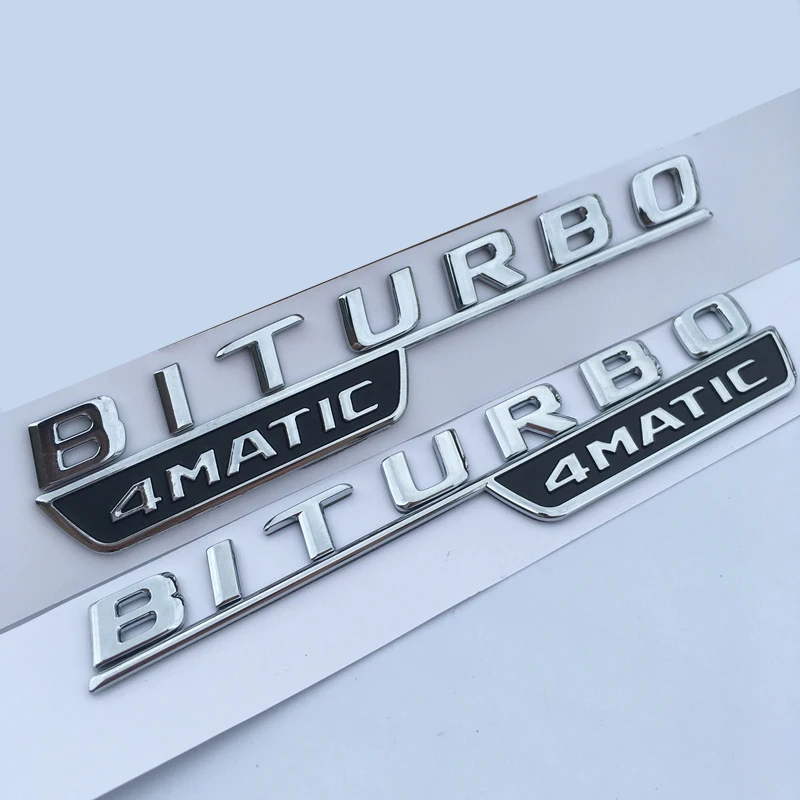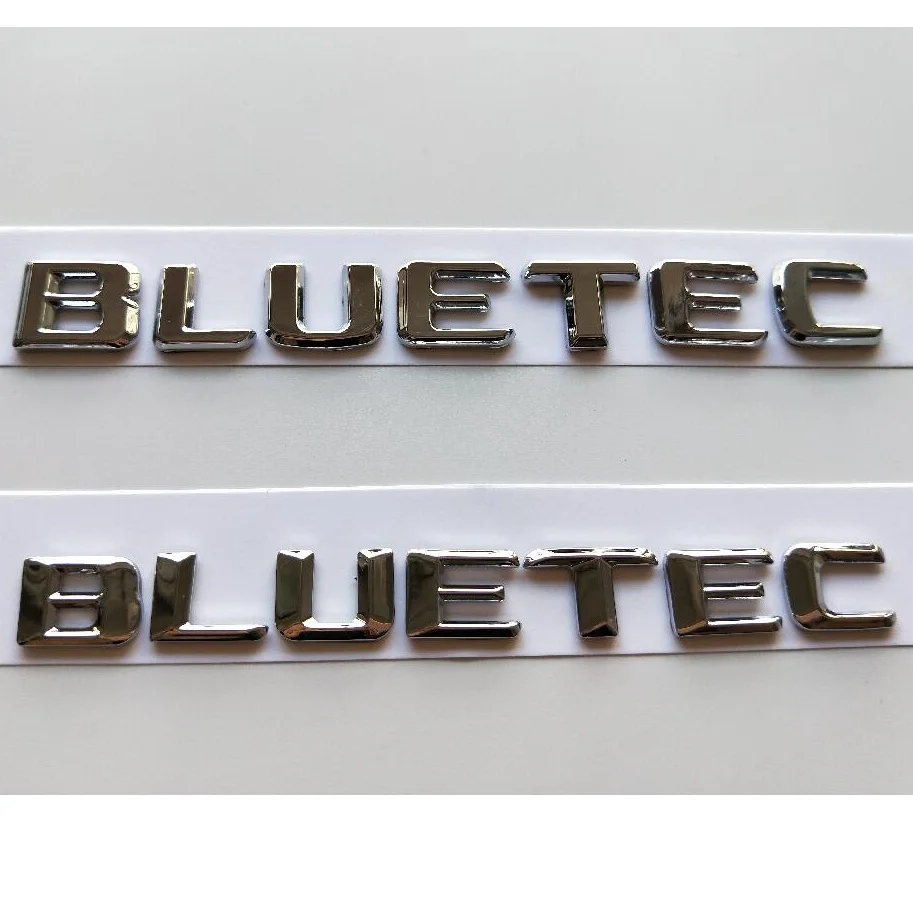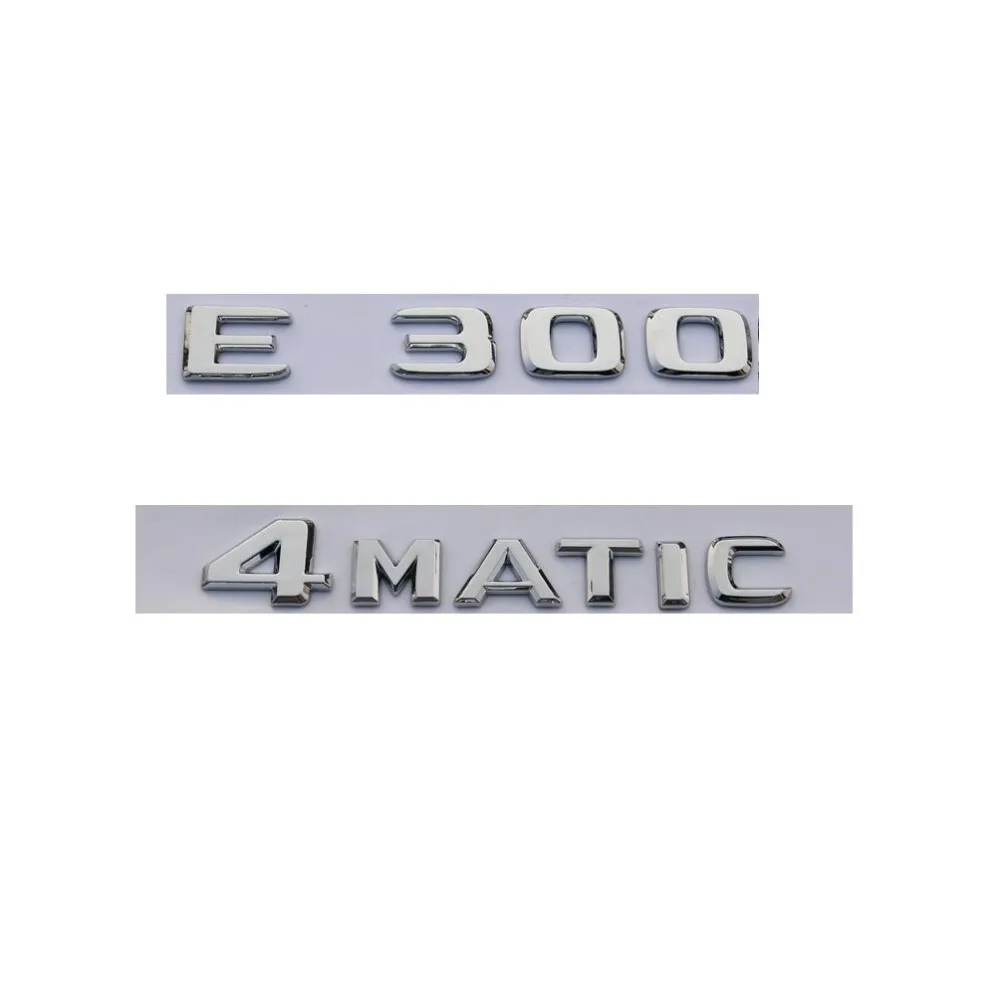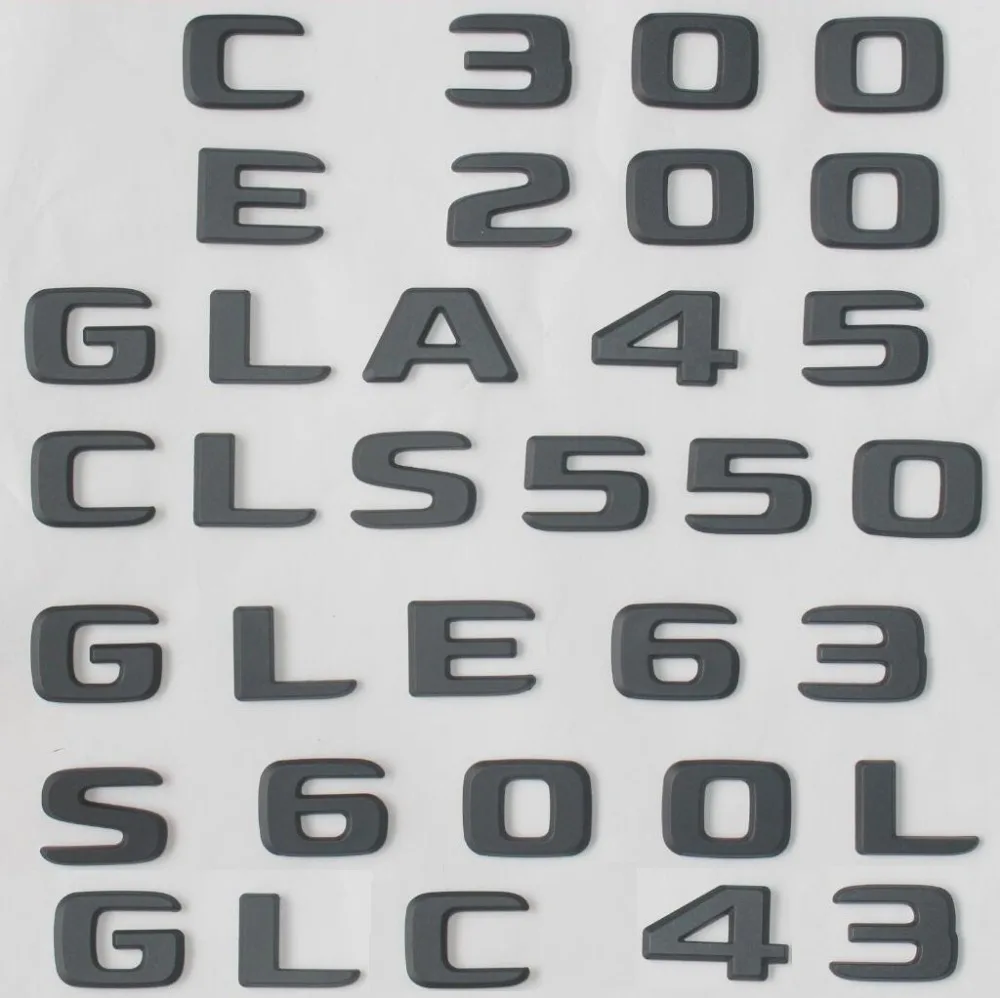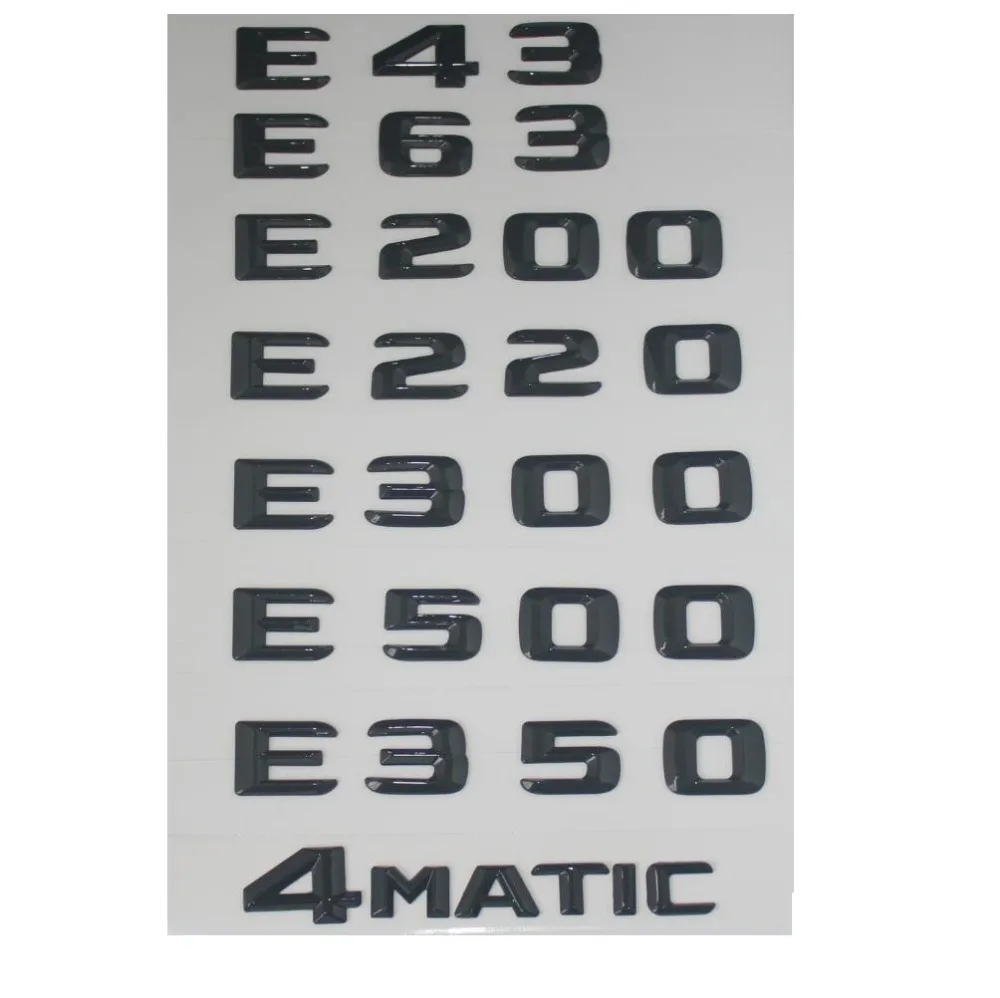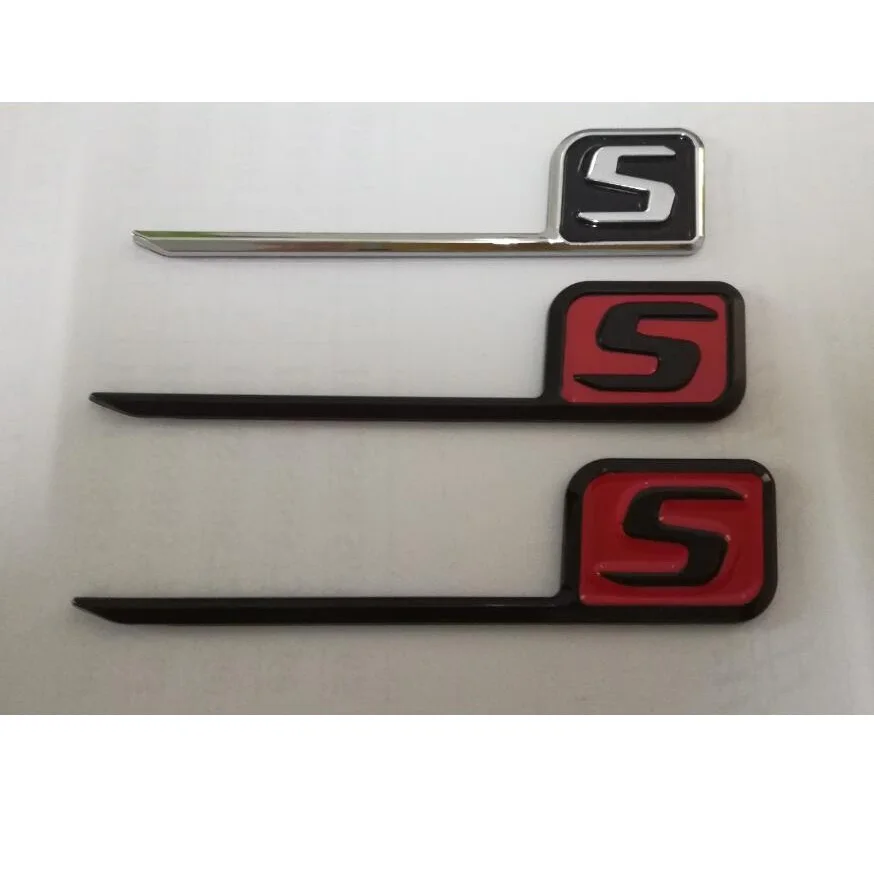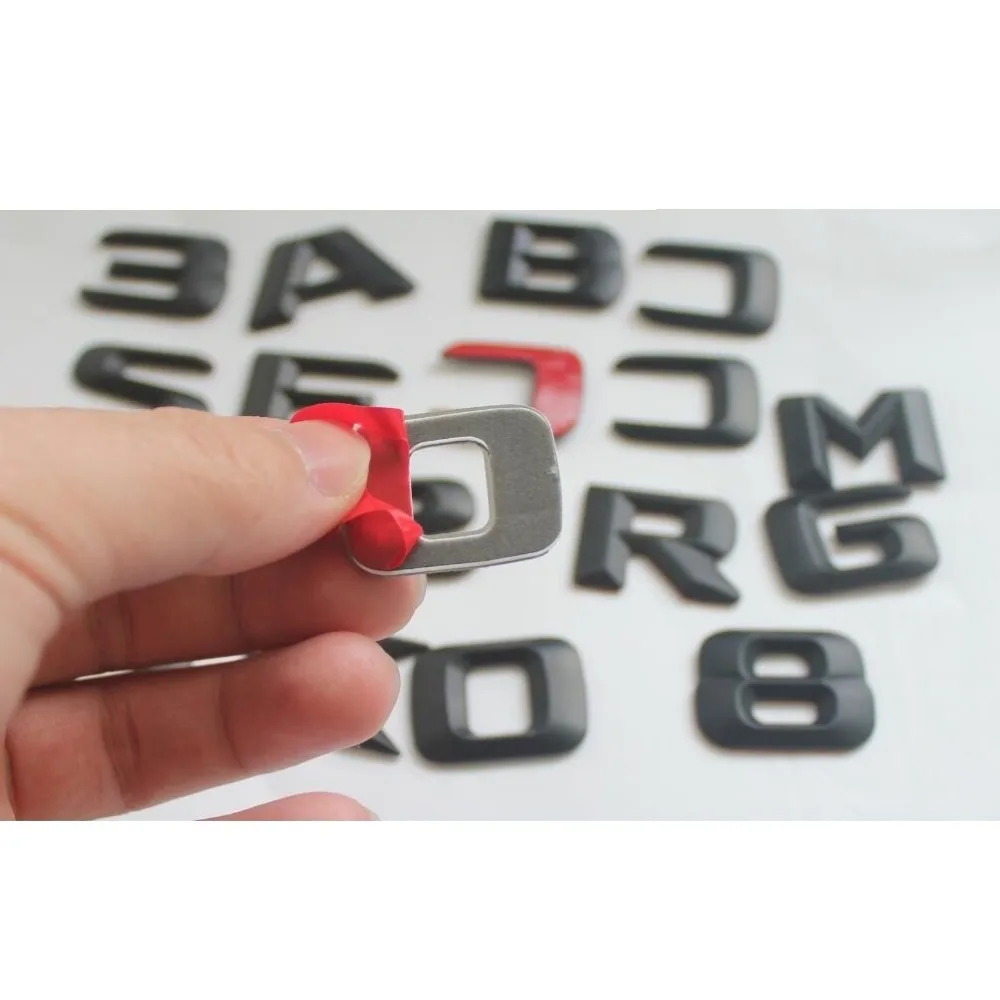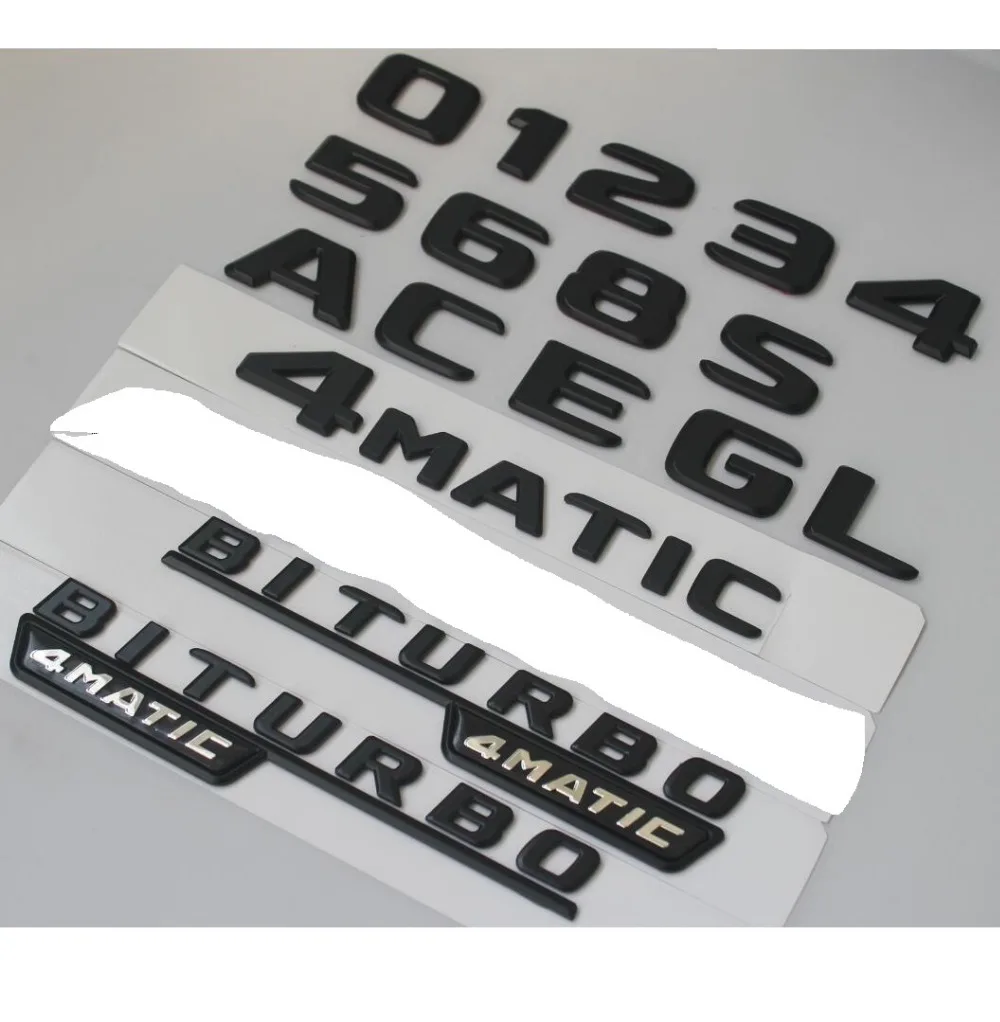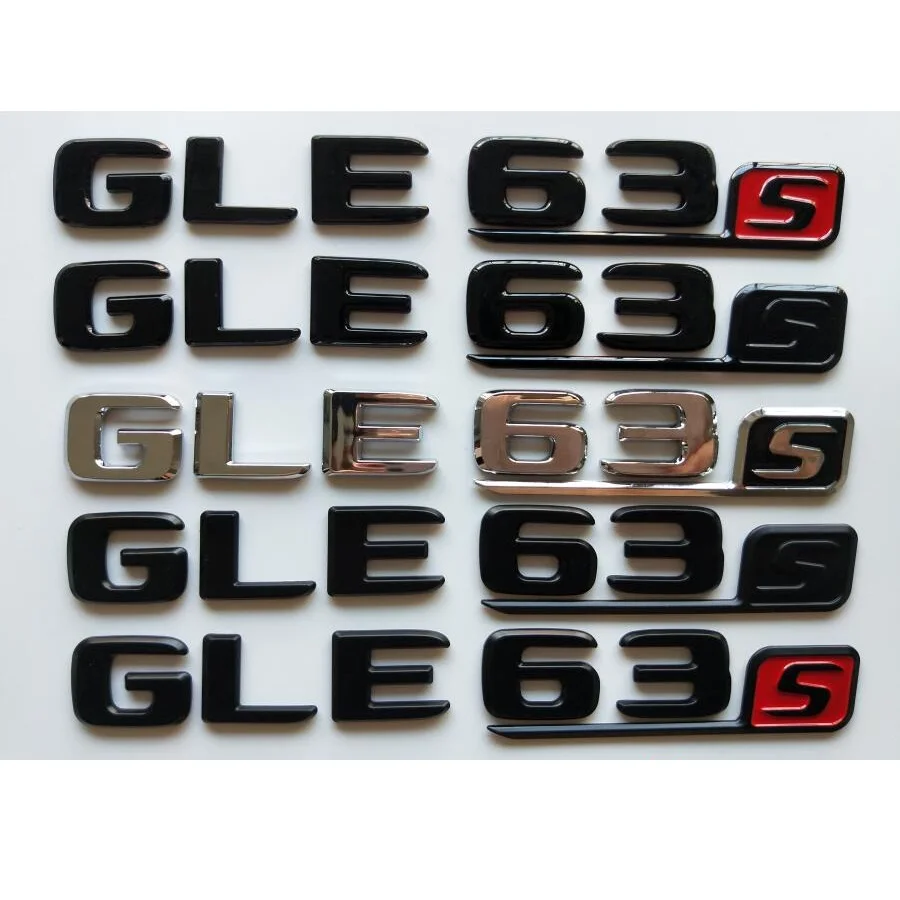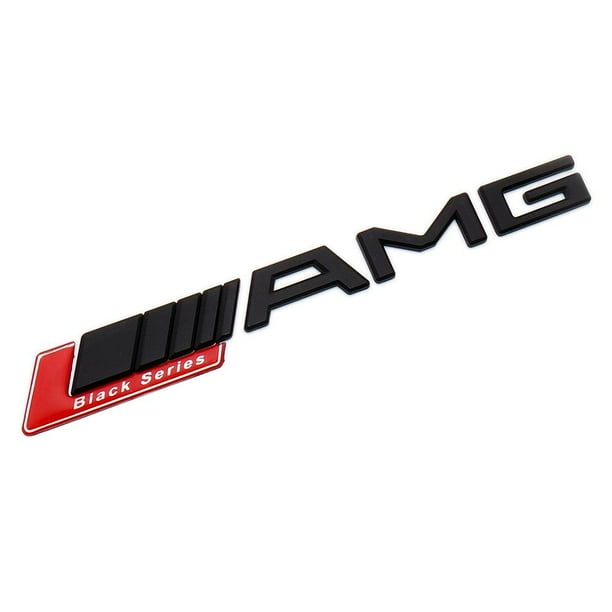
Mercedes Badge Font
1001 Fonts has a mix of deadringer knockoff badge fonts and others that just feel vaguely carrelevant But, again, there appear to be a lot of free options And of course if you’re looking for.
Mercedes badge font. Font Meme is a fonts & typography resource The "Fonts in Use" section features posts about fonts used in logos, films, TV shows, video games, books and more;. Can anyone tell me what font this is?and does the font come staggered like it shows here with the white padding around the lettering?. Identified font Corporate A Suggested by donshottype Suggested fonts Korataki Italic Suggested by donshottype Pirulen Bold Italic Suggested by donshottype #2 donshottype Quote.
The font used in MercedesBenz's logo is called Corporate A Bq. If you cannot find a font for the make or model you are looking for, we recommend that you look over the other fonts, as many manufacturers use similar fonts We've also included links to logo and branding resources If you know of any other automotive fonts please drop us an email and we'll add it to the archive Sponsored by. In 18, Mercedes become the biggest selling vehicle brand in the world And it sold over 231 million cars Due to its popularity, many designers look forward to the font used in the Mercedes title The font used for the lettering in the logo is very similar to Corporate A Font Family URW (Unternehmensberatung Rubow Weber) is a digital.
The font used in MercedesBenz's logo is called Corporate A Bq You can view, test with the font generator, and download the font here. MercedesBenz emblem There have been plenty of additional iterations of the logo with Mercedes Benz in a number of fonts, forming what is known as a ‘logo lock up’ Eg during the 1960s the logo included an expanded font in caps — very reminiscent of the era — this being just one of a number variations of lock ups So whilst the. If you want a totally custom badge, logo, or emblem, just send us a design idea, and our graphic design team will collaborate with you to create exactly the custom grille you have in mind Or, you can choose from some of our existing custom emblems below Whether you want to advertise your business or simply add a personal touch to your truck.